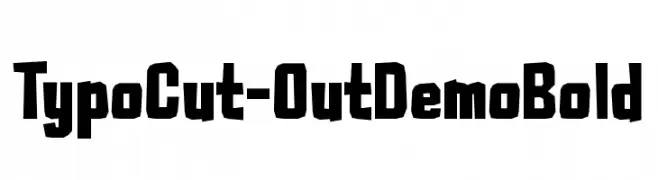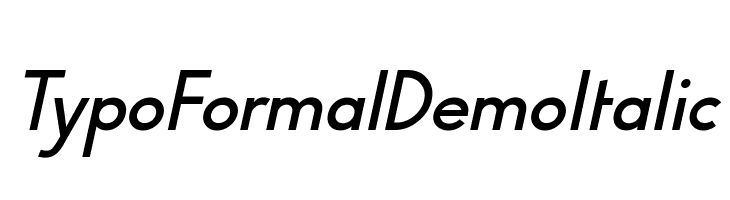
A bold, cut-out style font with a handcrafted, artistic appearance.
A bold, shadowed font with a cut-out effect for a three-dimensional look.
A bold, edgy font with a cut-out, shaky design for dynamic projects.
A bold, striped, cut-out style font perfect for decorative and eye-catching designs.
A digital, geometric font with a futuristic, tech-inspired design.
A digital, segmented font with an italic, futuristic style.
A bold, sketch-like font with a hand-drawn, textured appearance.
A modern, geometric sans-serif font with clean lines and balanced spacing.
A bold, modern font with thick, uniform strokes and geometric precision.
A bold and italic font with a dynamic and modern style.